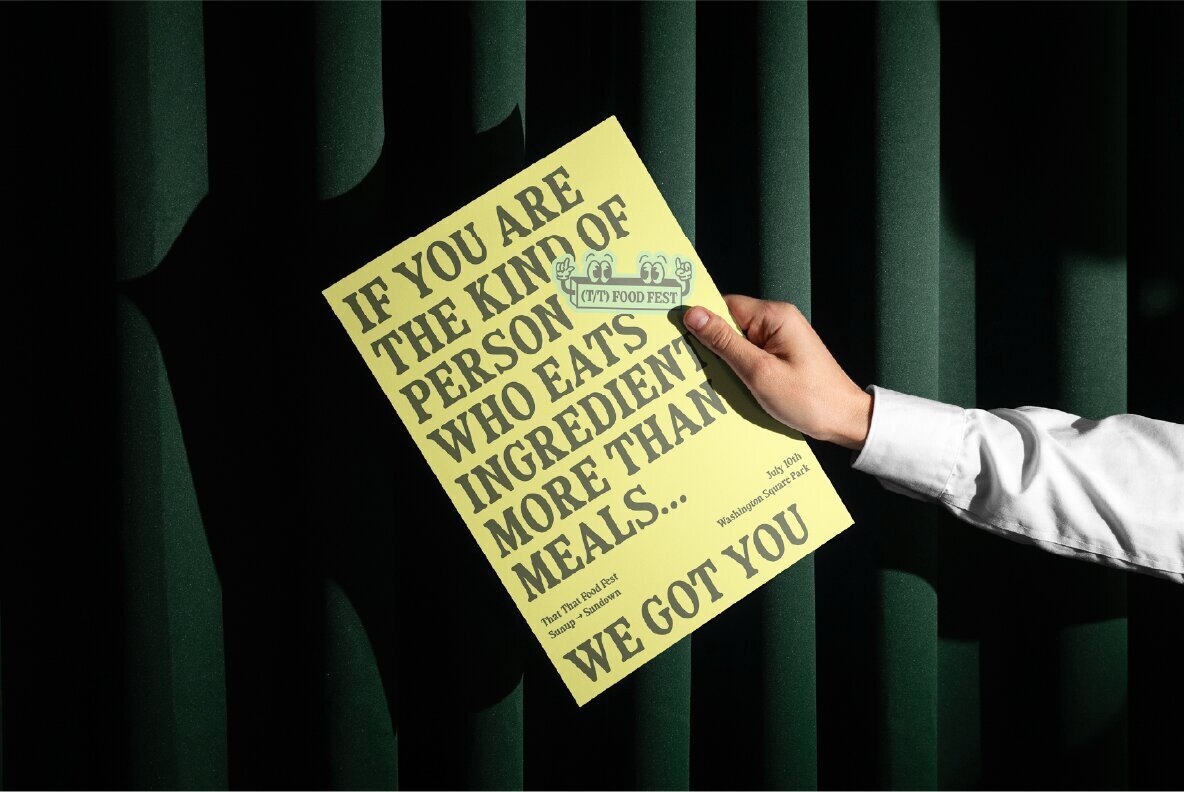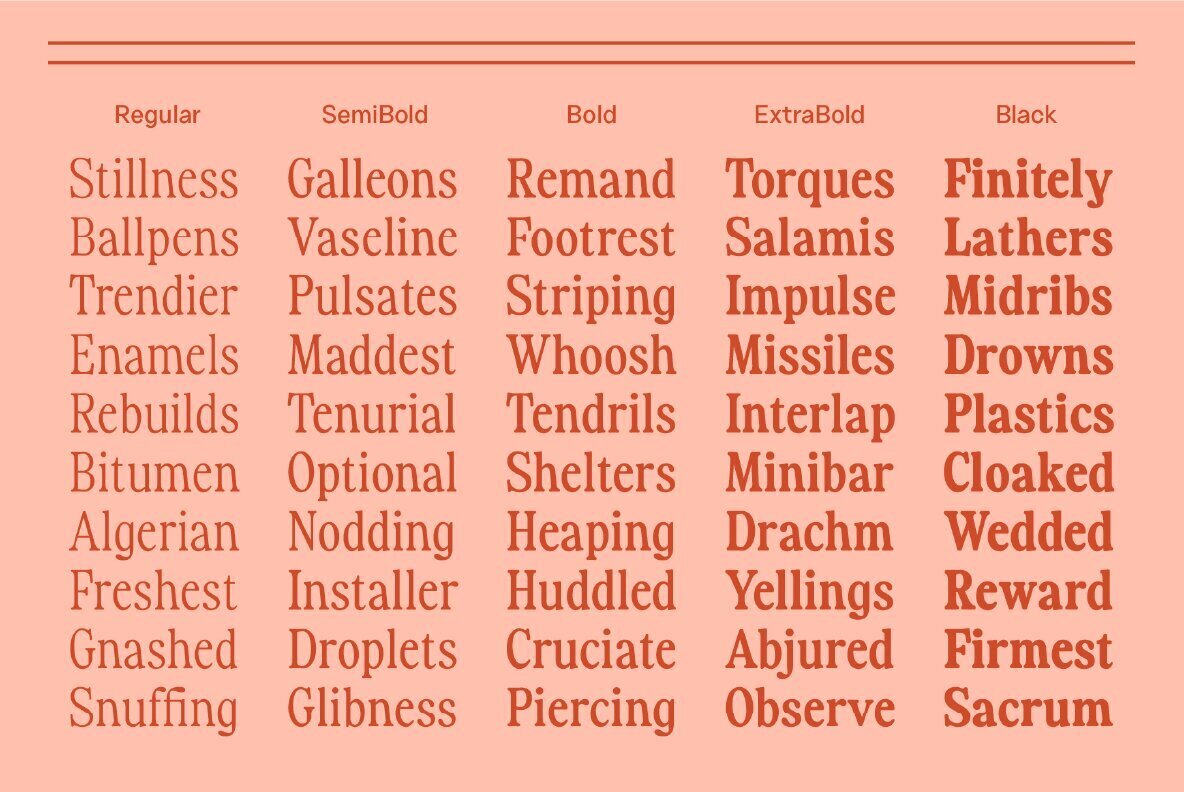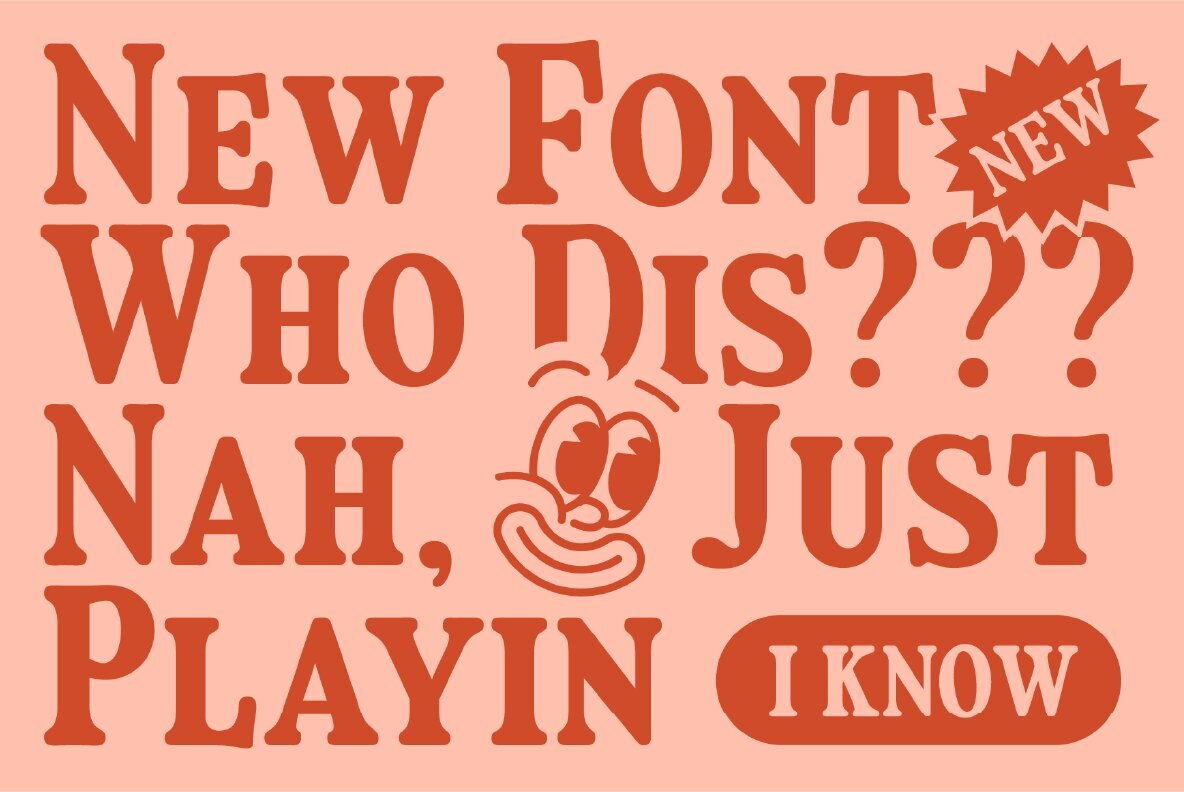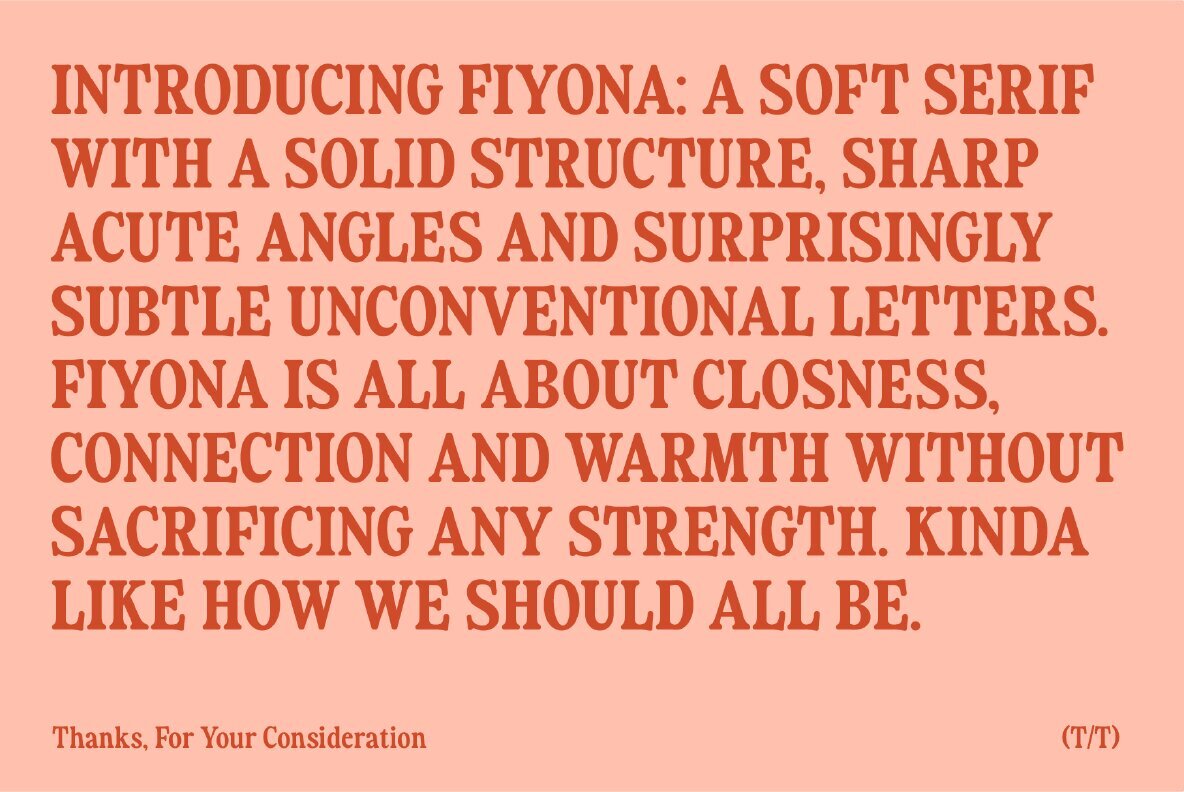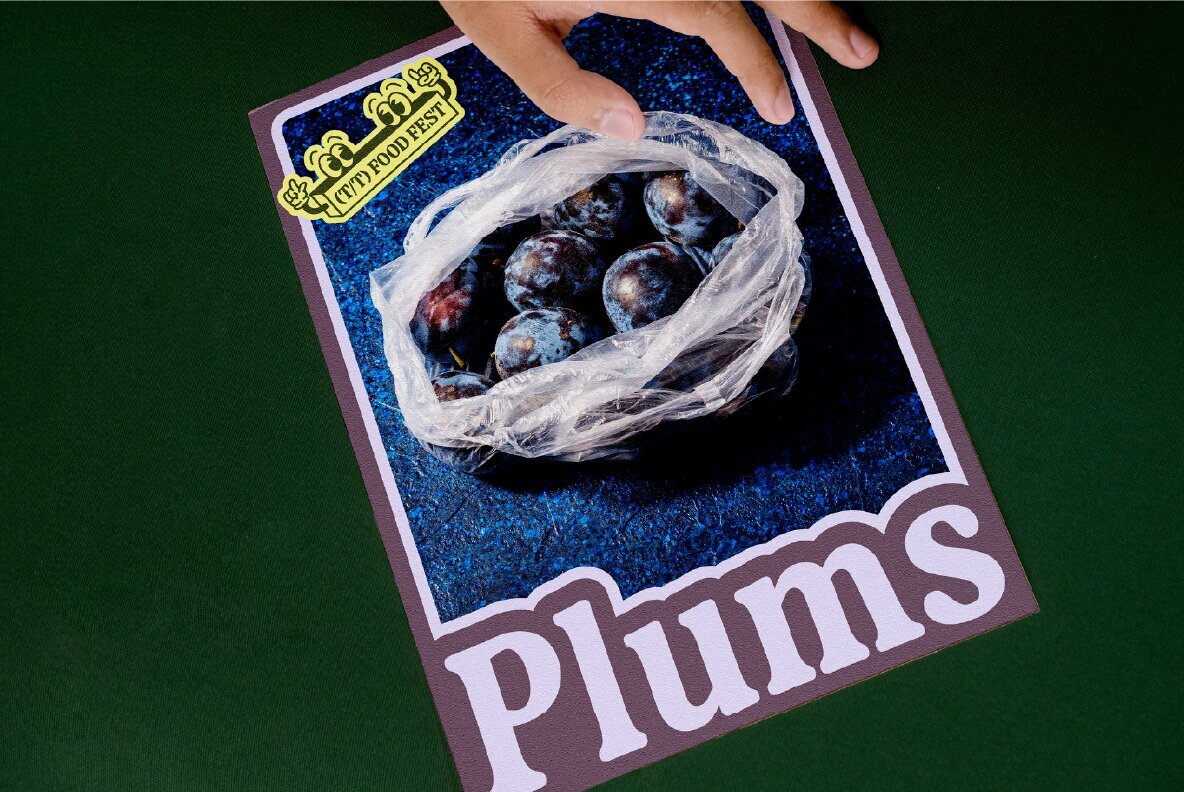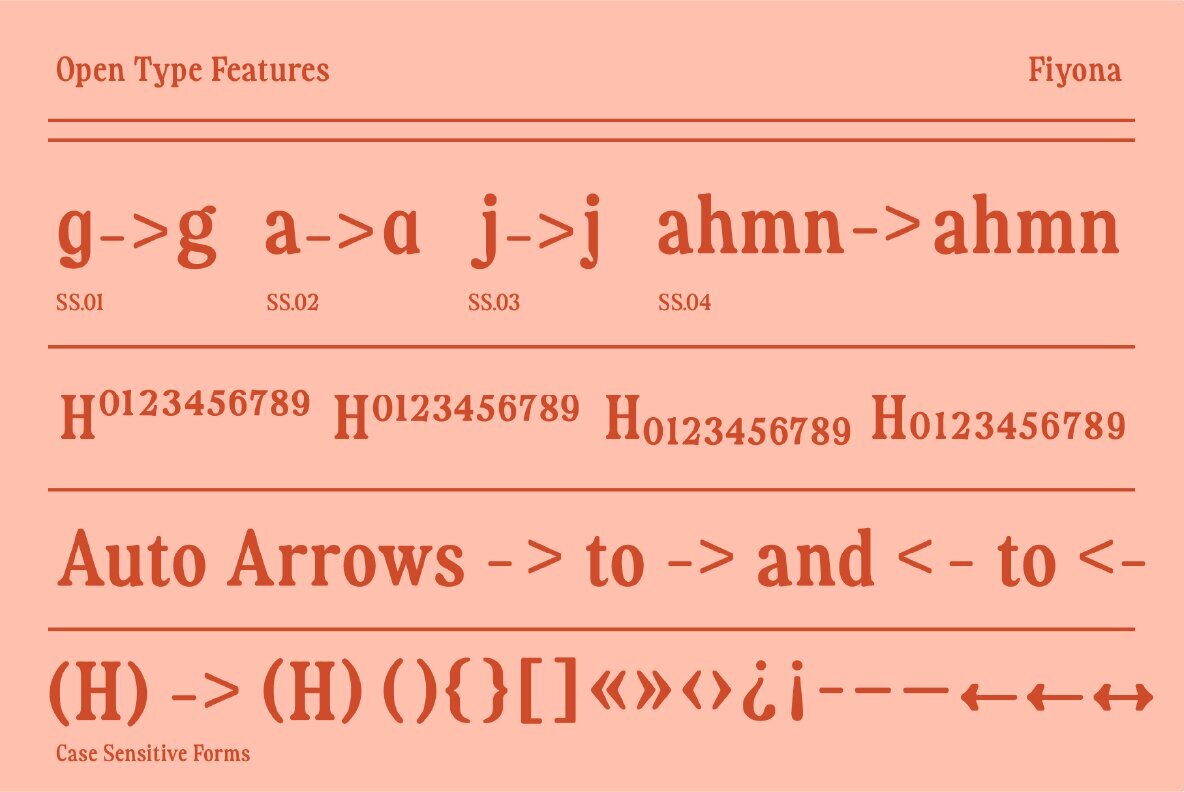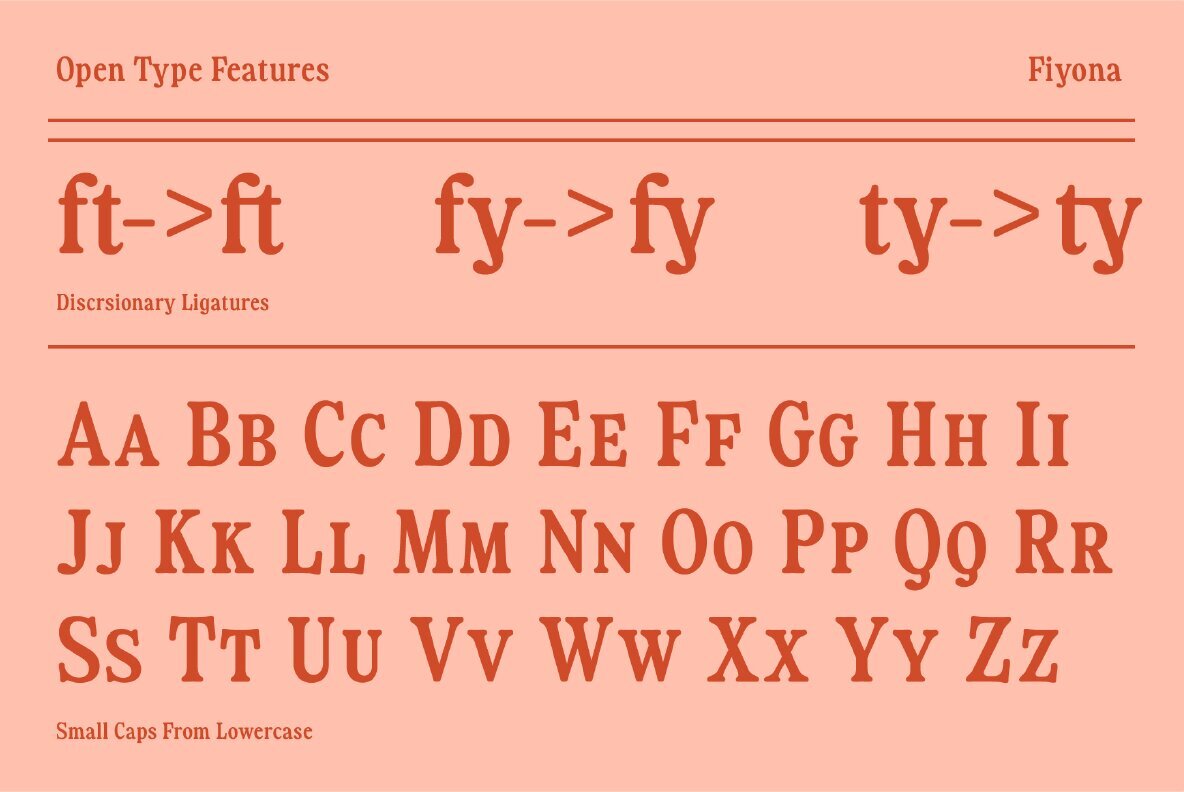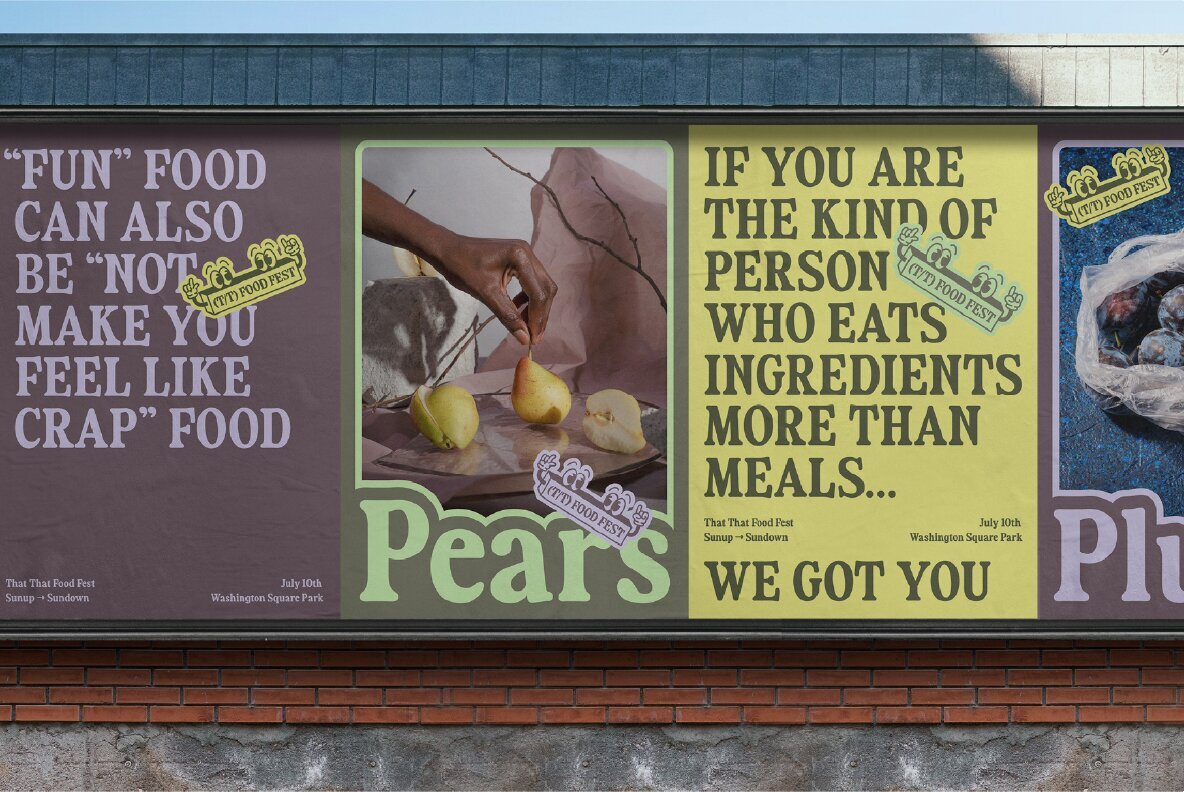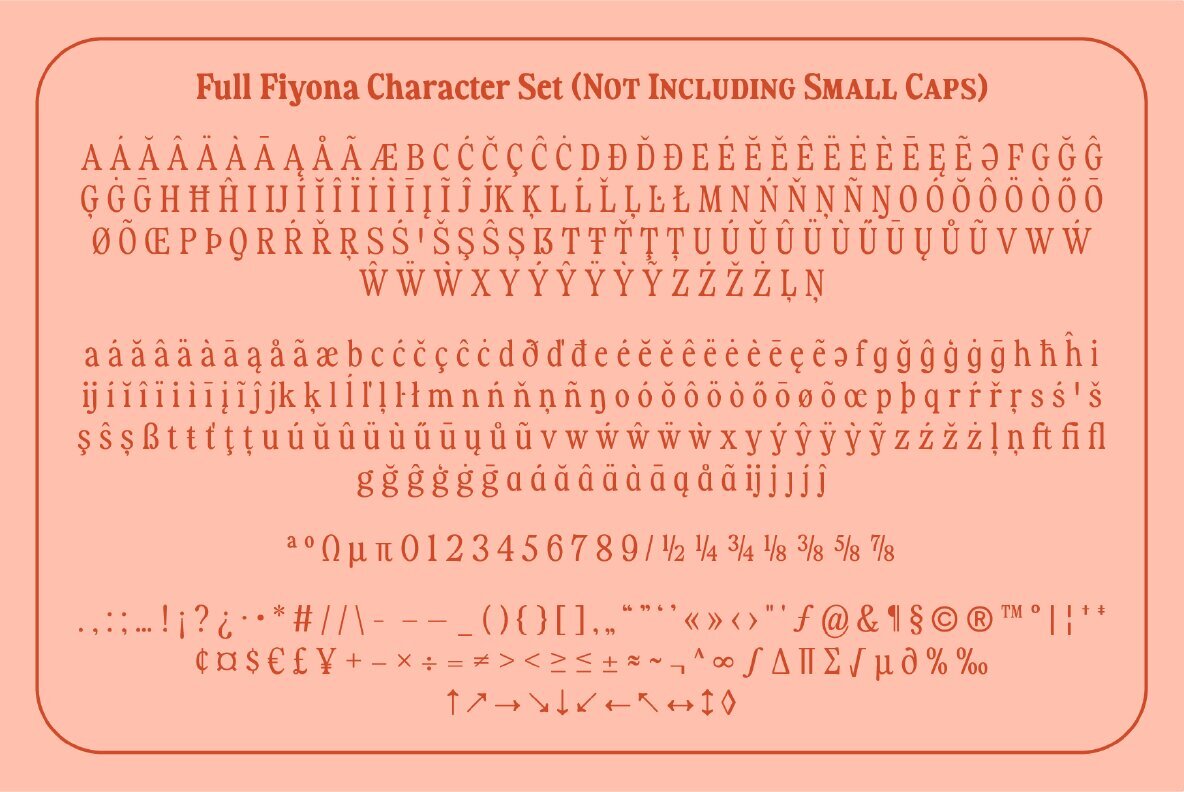
Fiyona Font
Introducing Fiyona: A Classic Twist on Contemporary Serif for Design Virtuosos Fiyona, designed by the ingenious That That, breathes a contemporary twist into the classic retro variable soft serif. Renowned for its distinct personality, Fiyona lushly blends eccentricity and elegance to create a unique typographic experience. Its fervently kicked out shoulder stem on characters such as “ahmn” paired with sharp barbs on “EFLT” and beaks on “CGS” evoke a strong sense of crafted storytelling, all tastefully tied together with its striking revered descender. This fusion of retro chic and modern sophistication ensures Fiyona's place as a vital tool in the arsenal of any graphic designer or marketing firm looking to make a compelling visual statement.